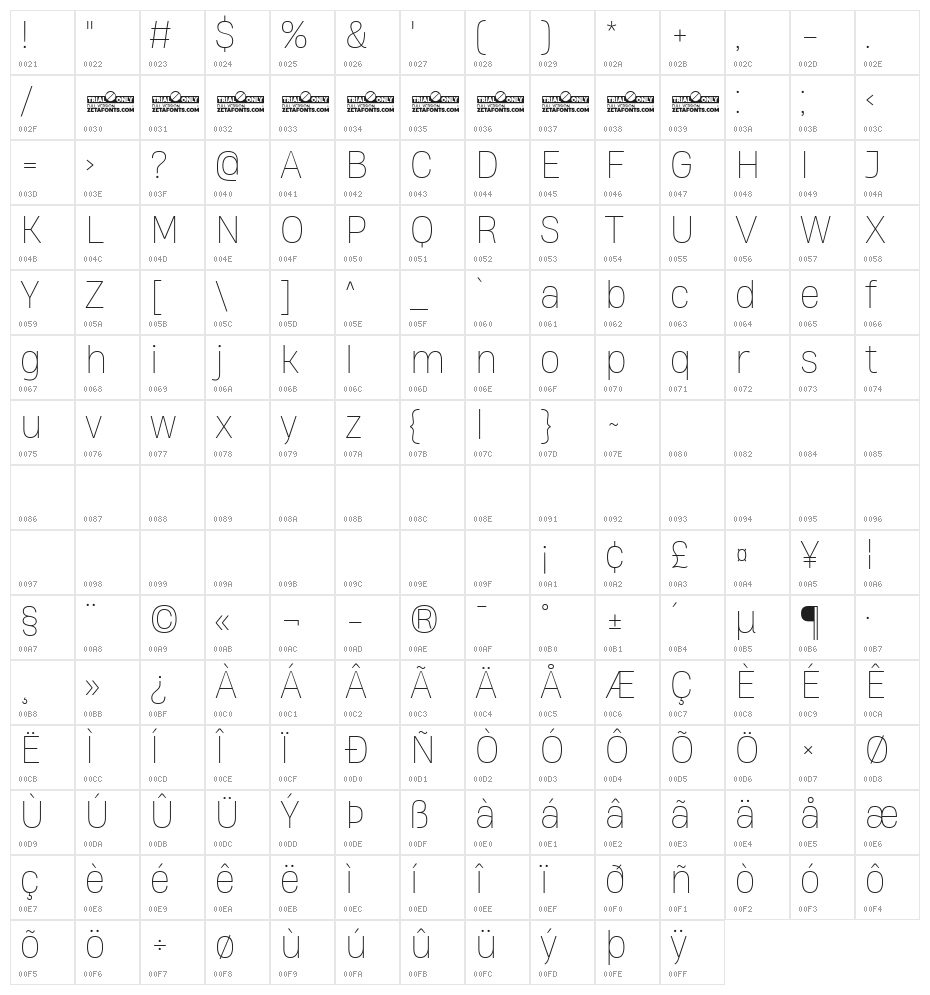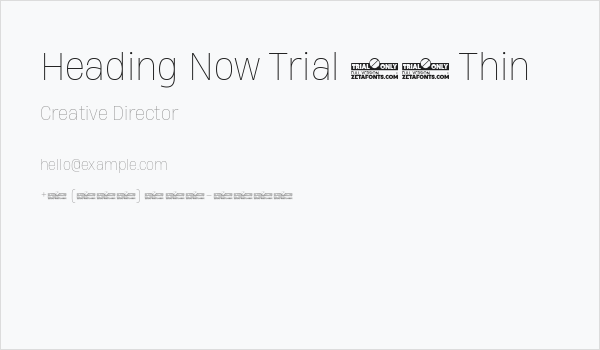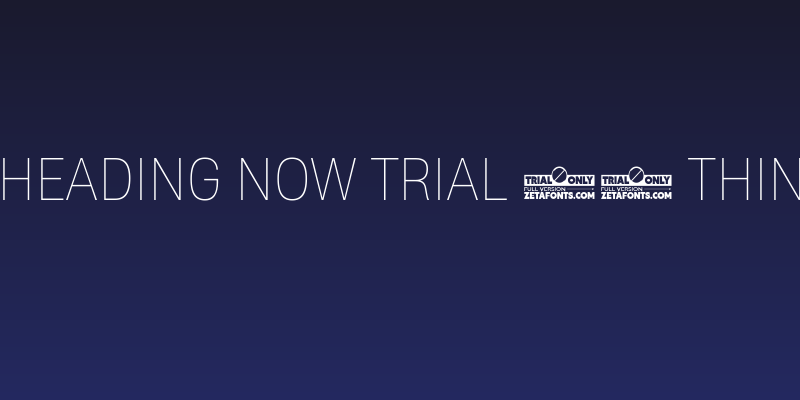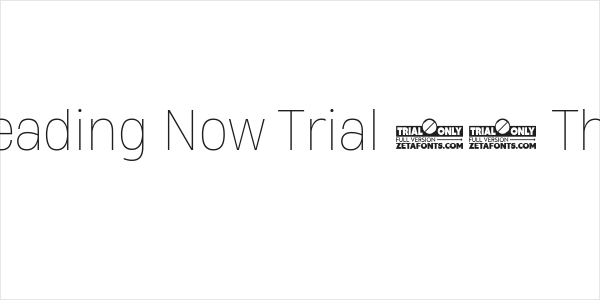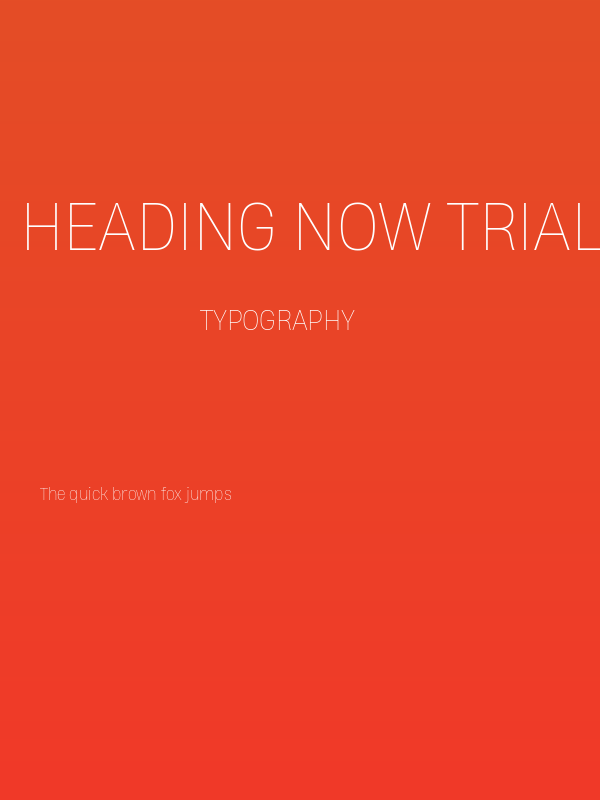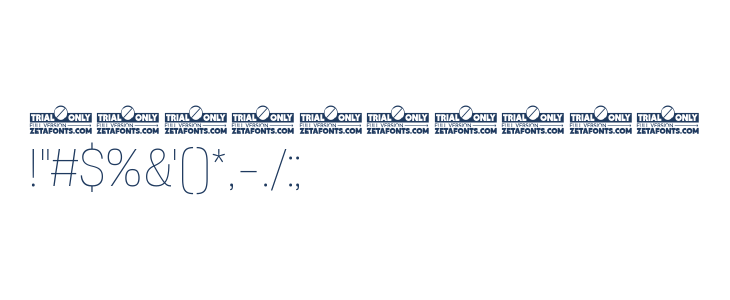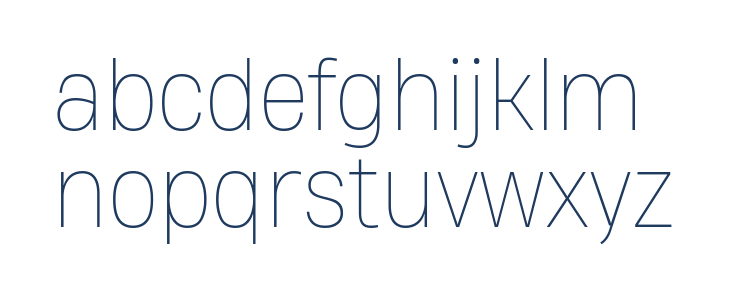
Heading Now Trial 61 Thin Font
Heading Now Trial 61 Thin Description
This font features a sleek and modern design with thin, clean lines that give it a minimalist and contemporary appearance. The characters are evenly spaced, providing a balanced and harmonious look. The uppercase and lowercase letters maintain a consistent style, with a geometric influence that enhances readability. The numerals and special characters are designed to match the overall aesthetic, ensuring uniformity across all text elements. This font's simplicity and elegance make it versatile for various design applications.